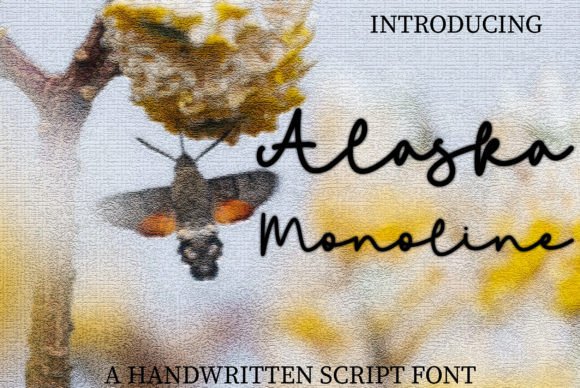
Introducing the captivating Alaska Monoline Font, a remarkable addition to your collection of script fonts. Created by the talented Both Design Studio 89, this font family is the epitome of elegance and modernity.
With its stylish and fluid letterforms, Alaska Monoline exudes sophistication and luxury, instantly elevating any design project to new heights. Whether you're working on branding, packaging, or other high-end applications, this font is your perfect companion.
Immerse yourself in the world of Alaska Monoline, where every curve and stroke exudes a sense of movement and grace. Each character is meticulously crafted to capture attention and ignite emotions in your audience.
The versatility of this script font is unparalleled. It effortlessly conveys a wide range of emotions, from warmth and friendliness to boldness and excitement. Let your creativity run wild as you experiment with its many ligatures and alternate characters, allowing you to create truly unique and eye-catching designs.
Alaska Monoline is more than just a font; it's a visual storytelling tool. It breathes life into your words, transforming them into captivating narratives that leave a lasting impression. Capture the essence of your brand and connect with your audience on a deeper level.
Don't settle for ordinary fonts when you can have the extraordinary. Embrace the power of Alaska Monoline and unleash your creativity like never before. Elevate your designs with this captivating font for script writing, and watch as your projects come to life with a touch of class and elegance.